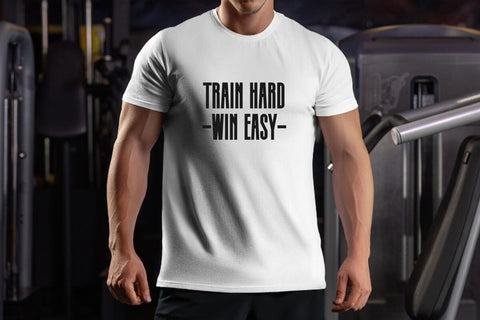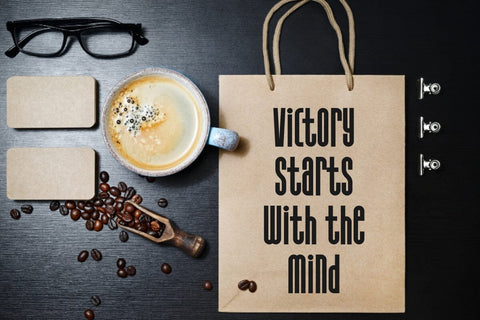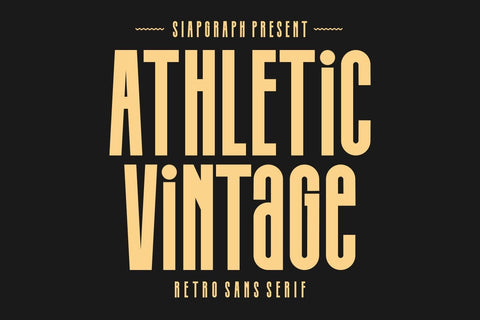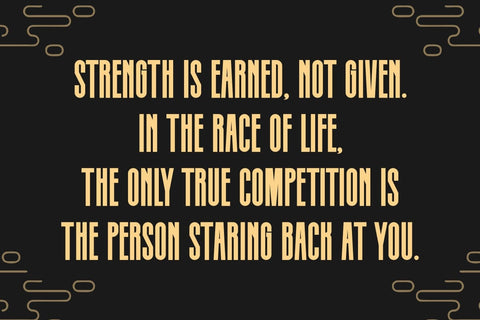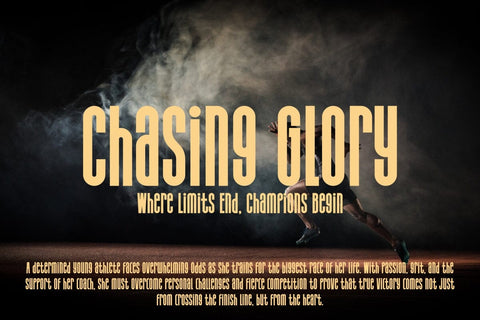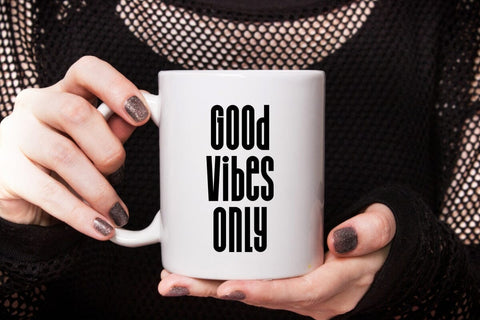
Athletic Vintage - Retro Sans Serif Font
Athletic Vintage is a clean and elegant retro sans serif font inspired by modern style with a touch of Christmas spirit. Its sleek design makes it perfect for creating standout quotes, posters, apparel mockups, and merchandise like t-shirts, mugs, and tote bags. Ideal for both festive and everyday projects, Athletic Vintage also works seamlessly for social media content, adding a stylish and timeless feel to your designs.